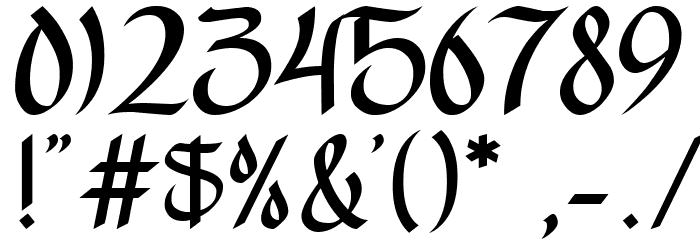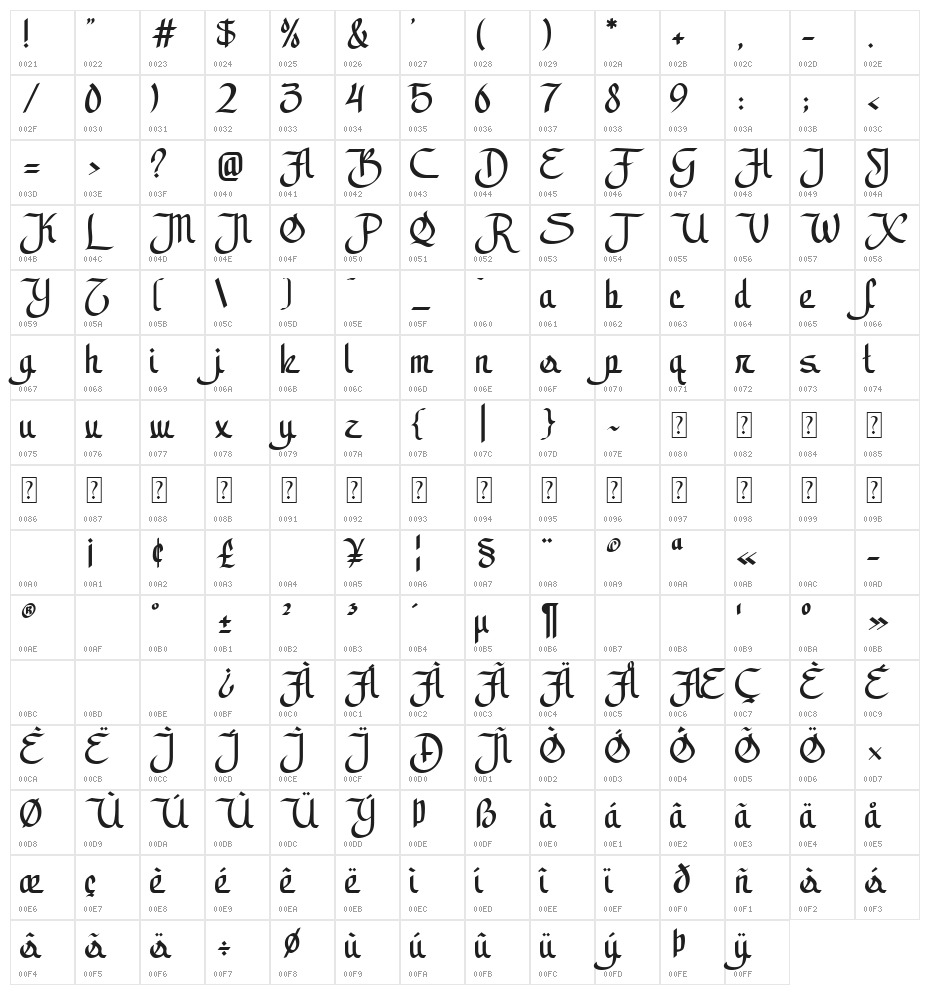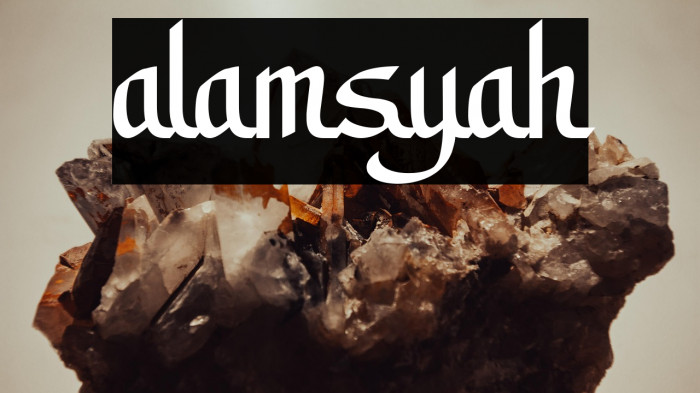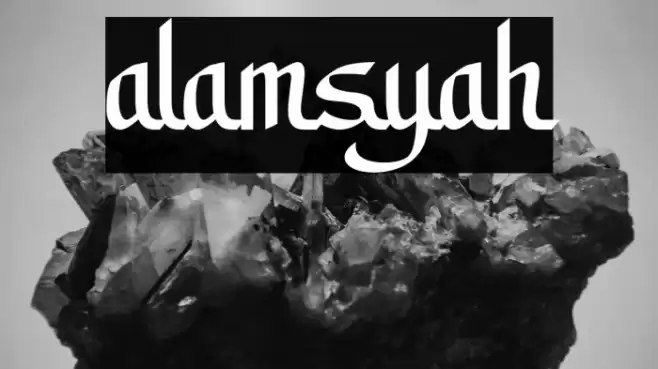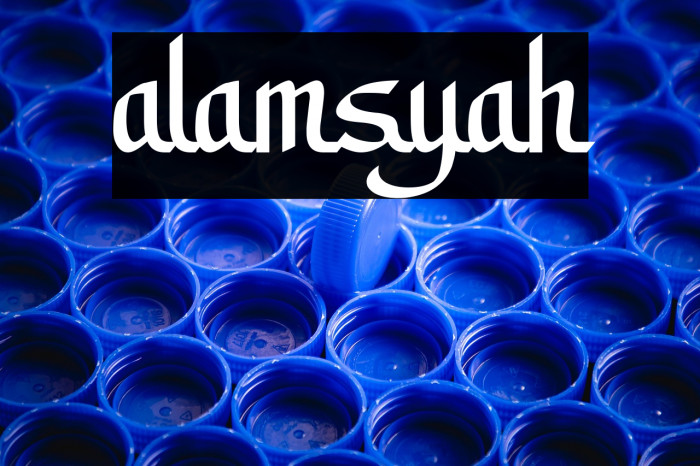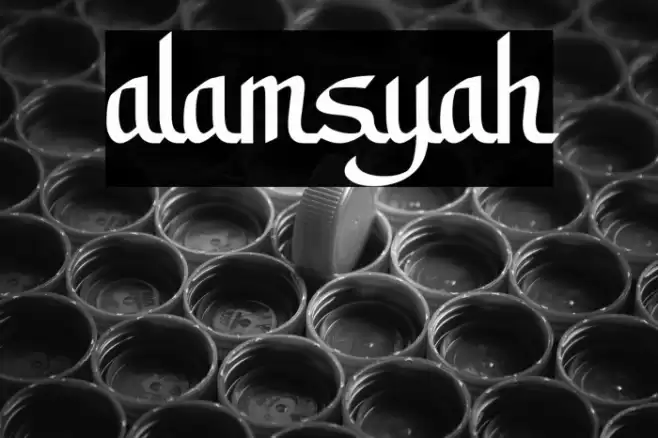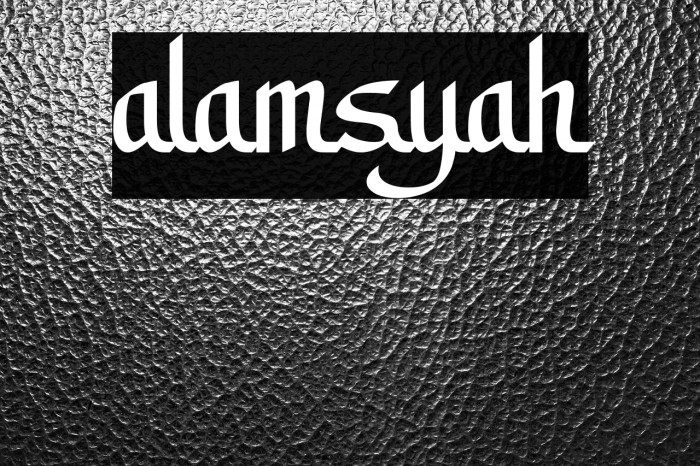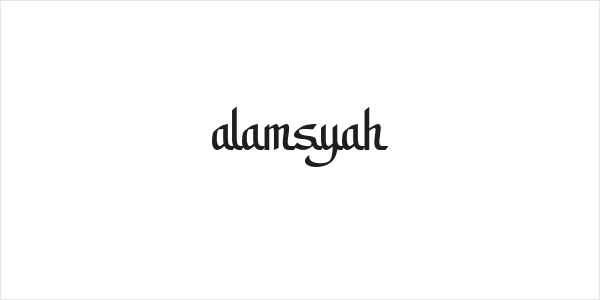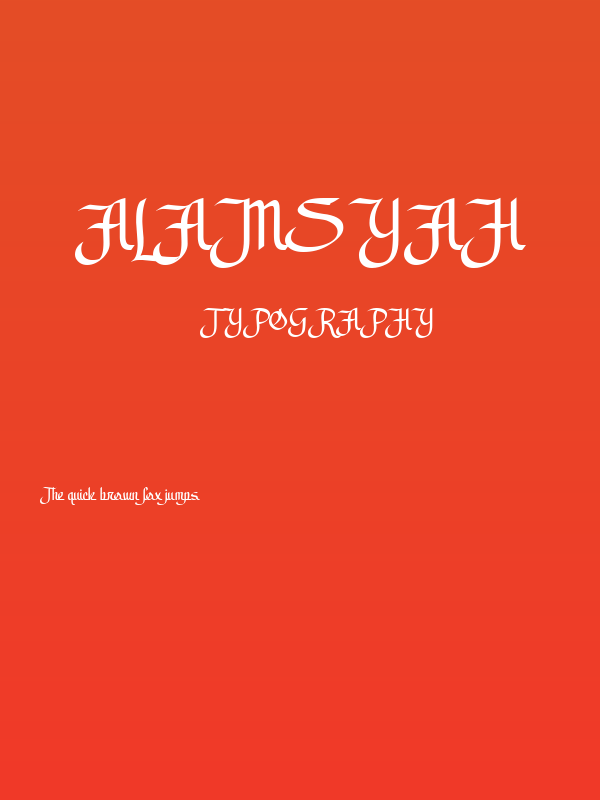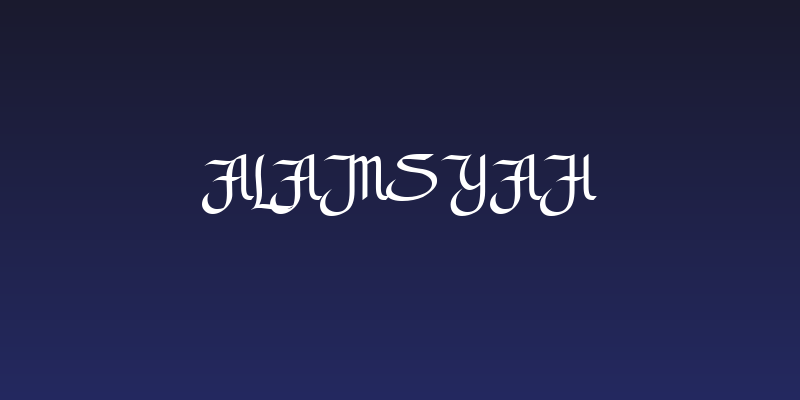
alamsyah Font
alamsyah Description
This font exhibits a dynamic and flowing script style, characterized by its elegant curves and fluid strokes. The uppercase letters display a harmonious blend of traditional calligraphic elements with a modern twist, making them stand out with their graceful loops and swashes. The lowercase letters maintain a consistent rhythm, enhancing readability while preserving the artistic flair. Numbers are crafted with the same attention to detail, ensuring they complement the overall aesthetic. Special characters are thoughtfully designed, adding versatility to the font's application. This typeface is perfect for projects that require a touch of sophistication and creativity.